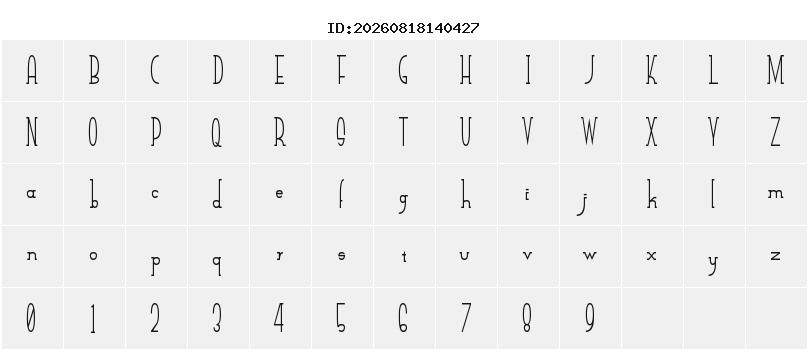
• Font Name: SmallTall
About SmallTall.ttf
SmallTall.ttf is a modern, elegant sans-serif font designed for ultimate readability and visual harmony. Perfect for branding, headlines, web design, and print materials.